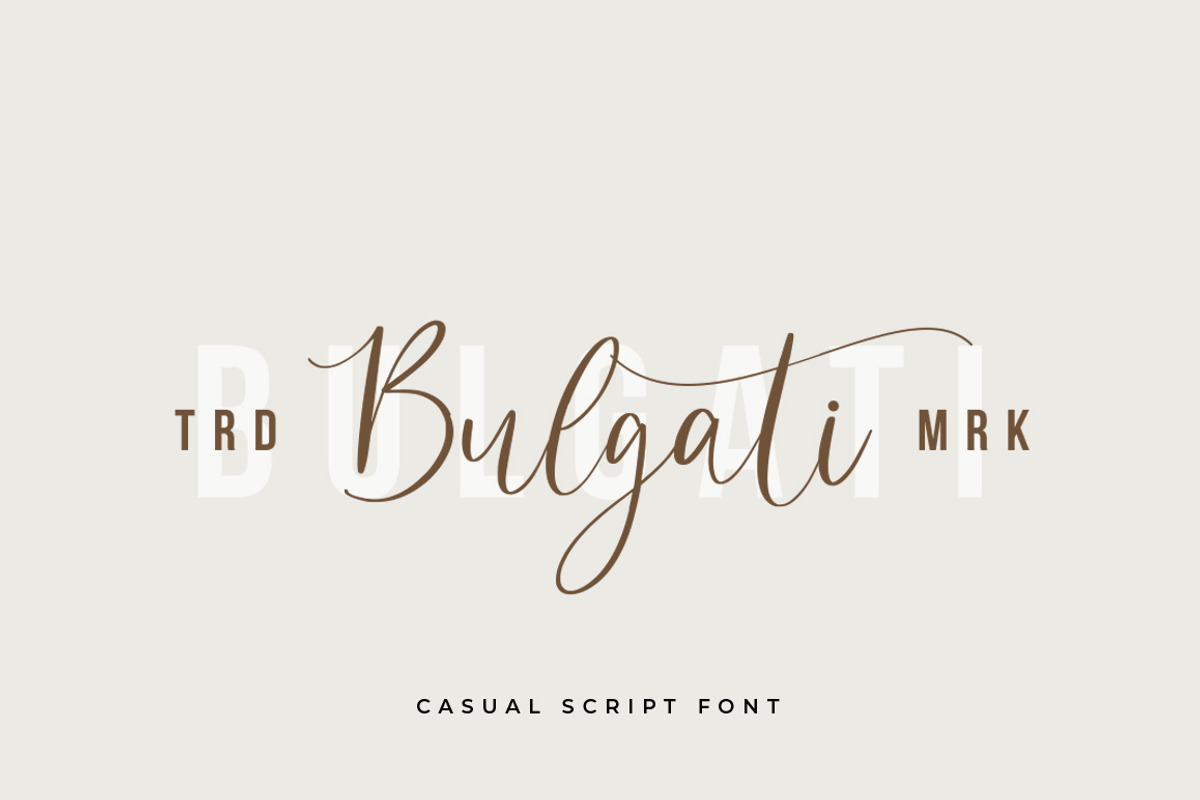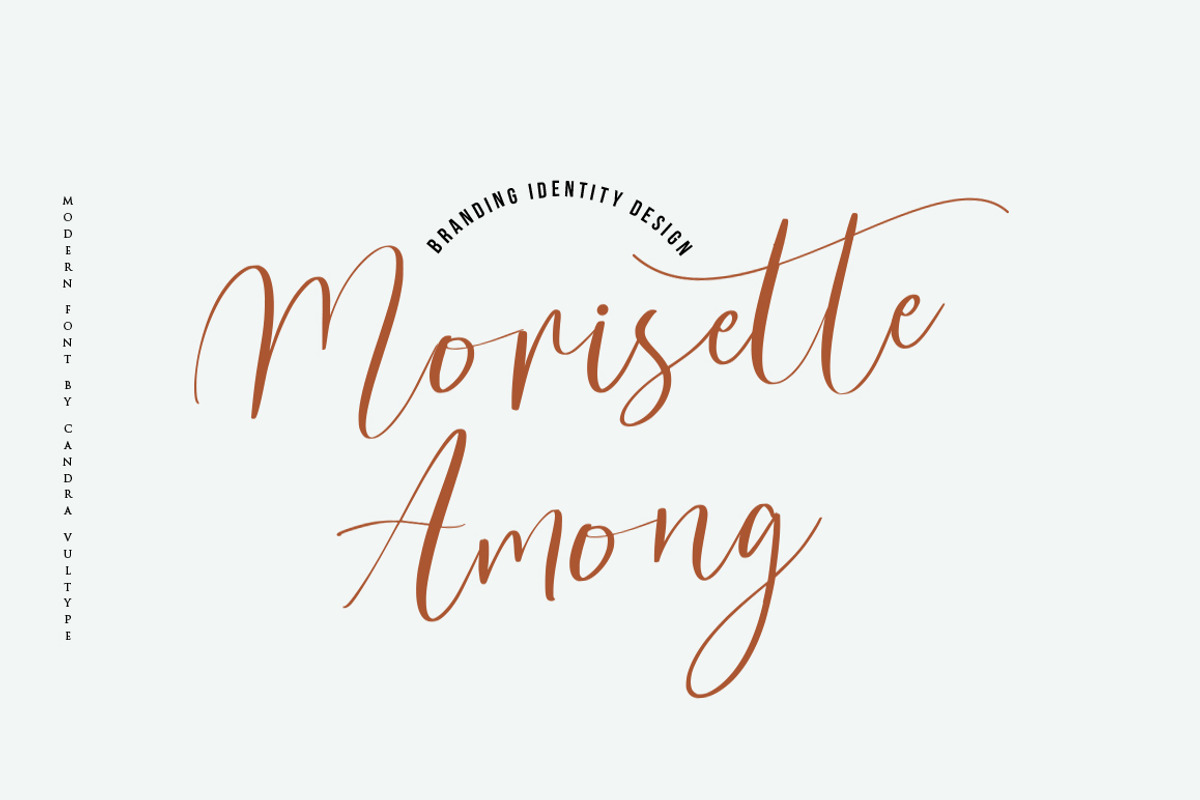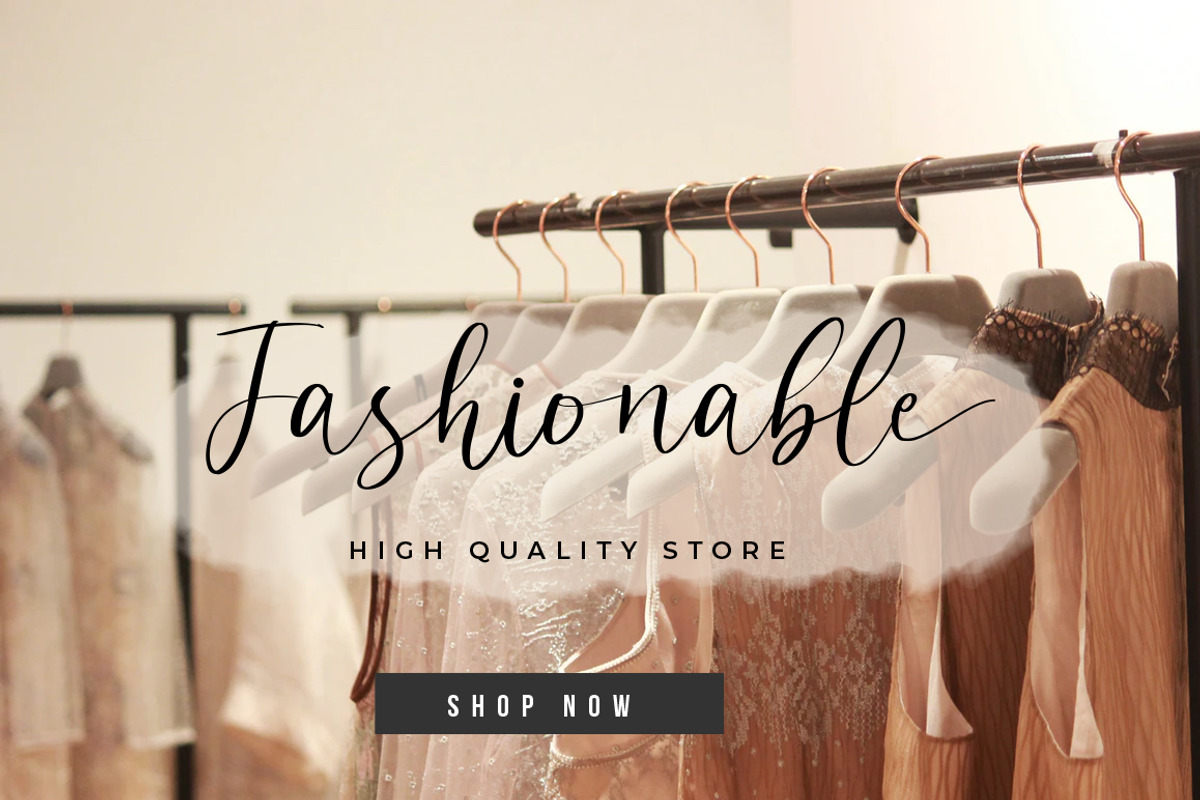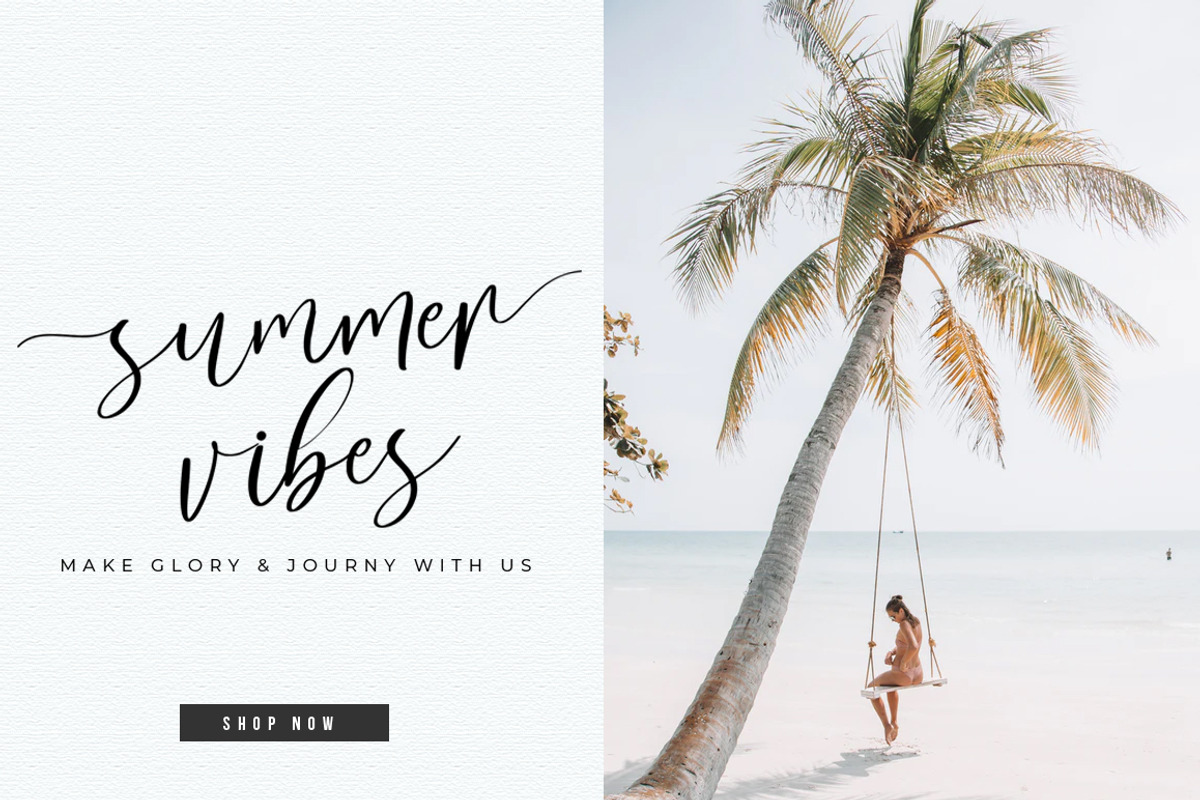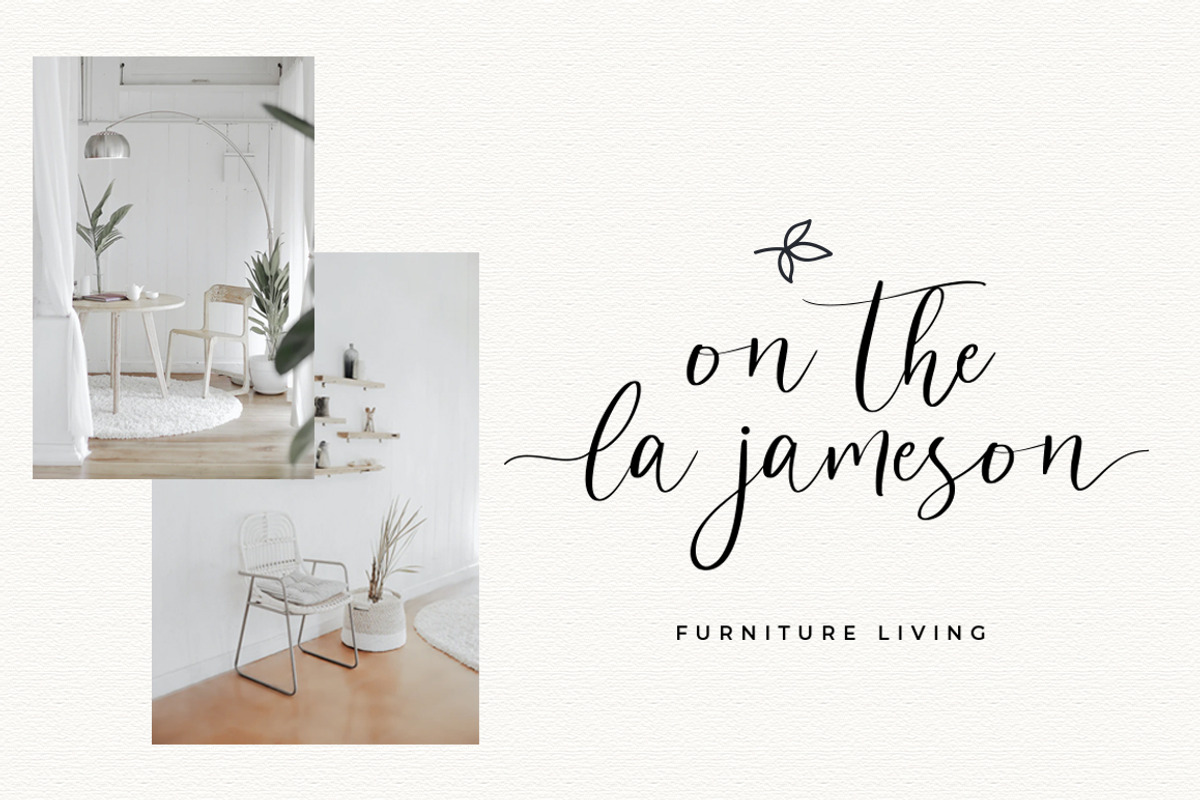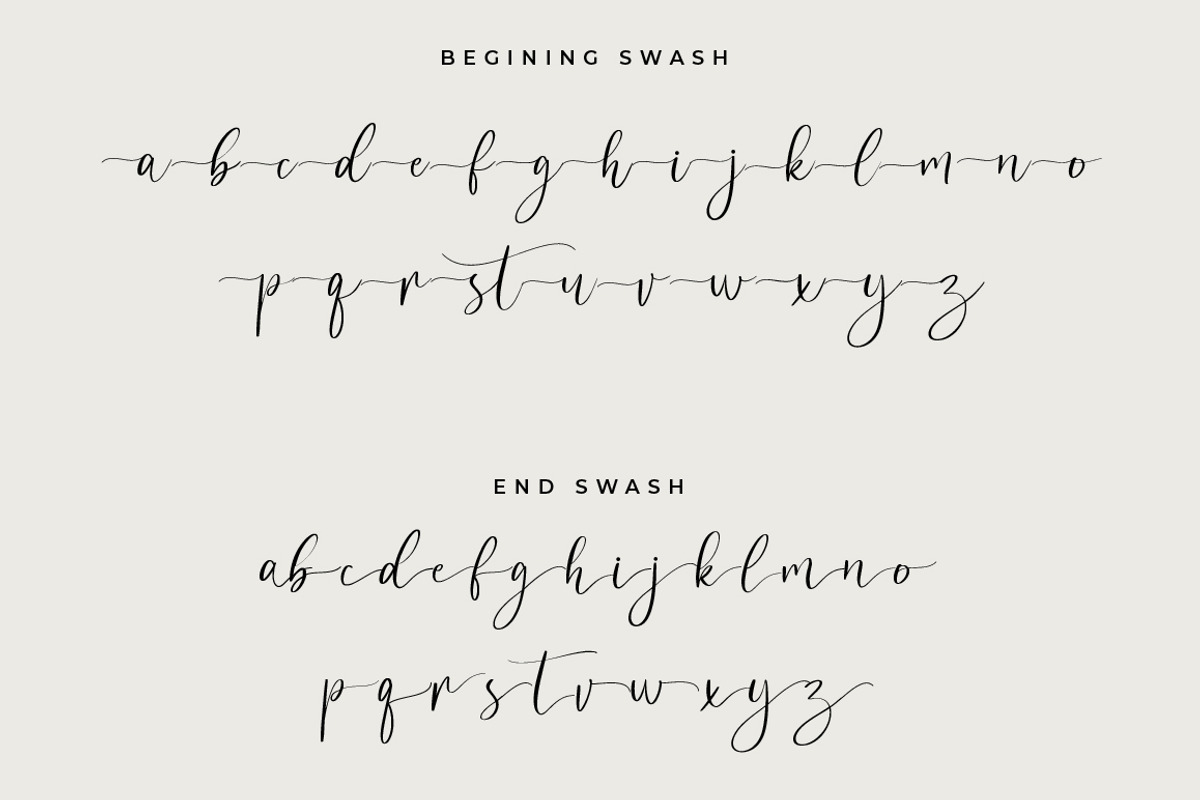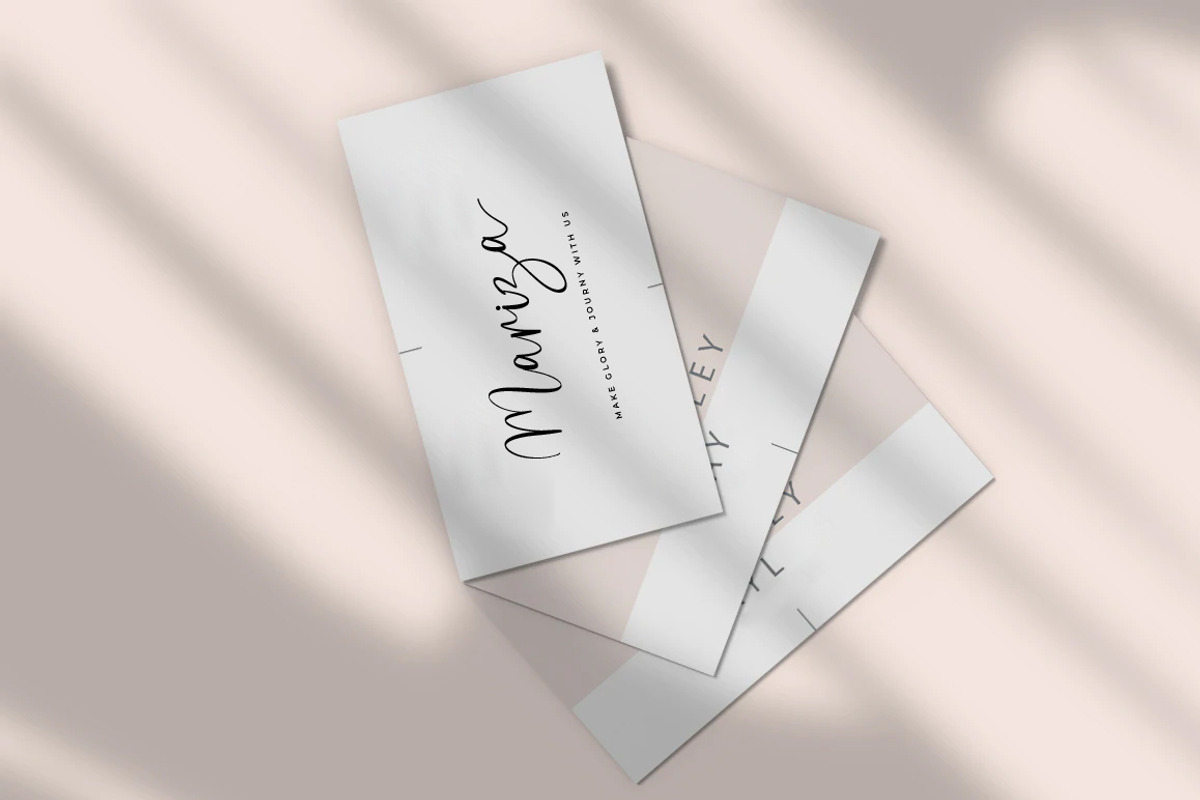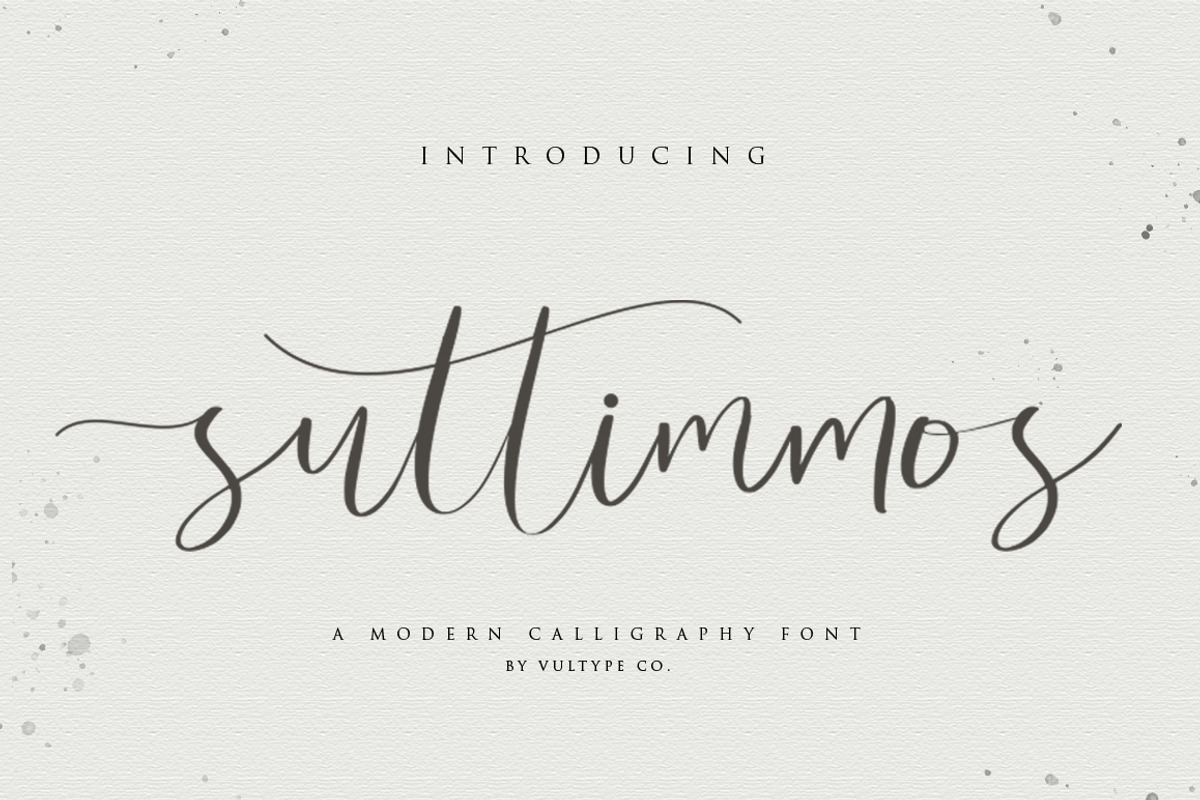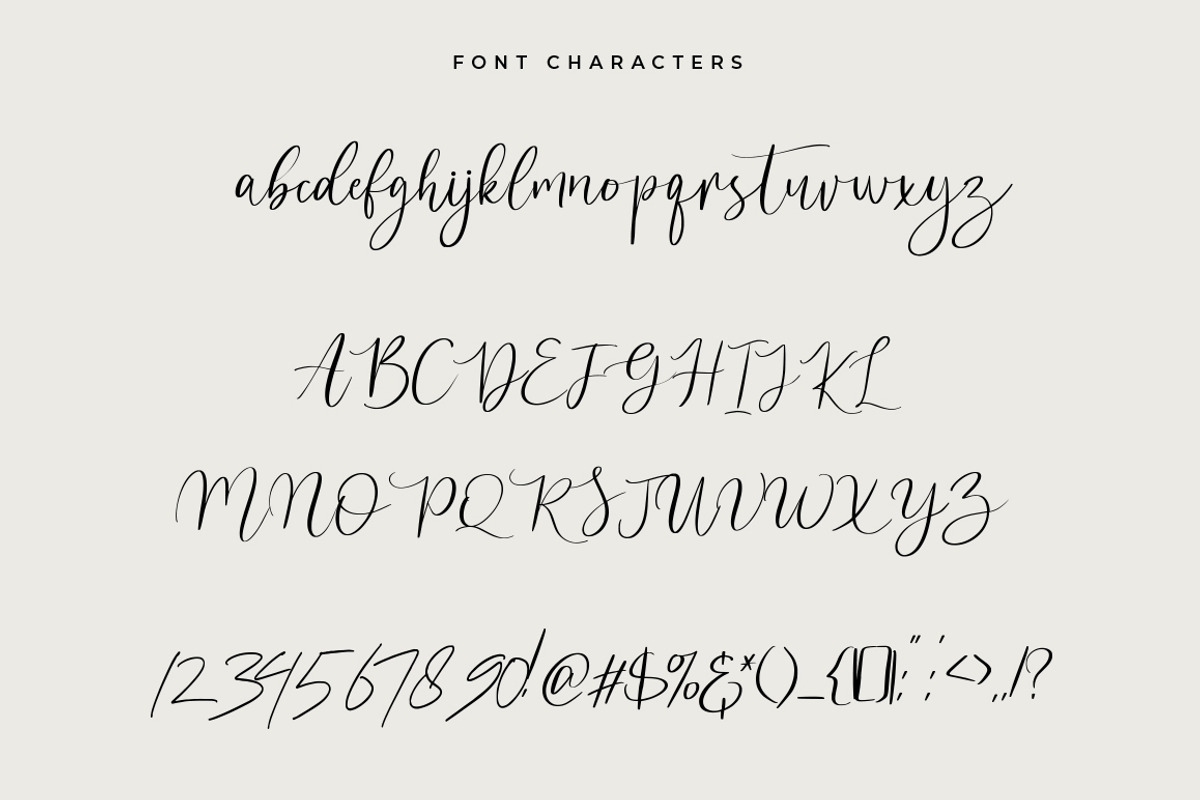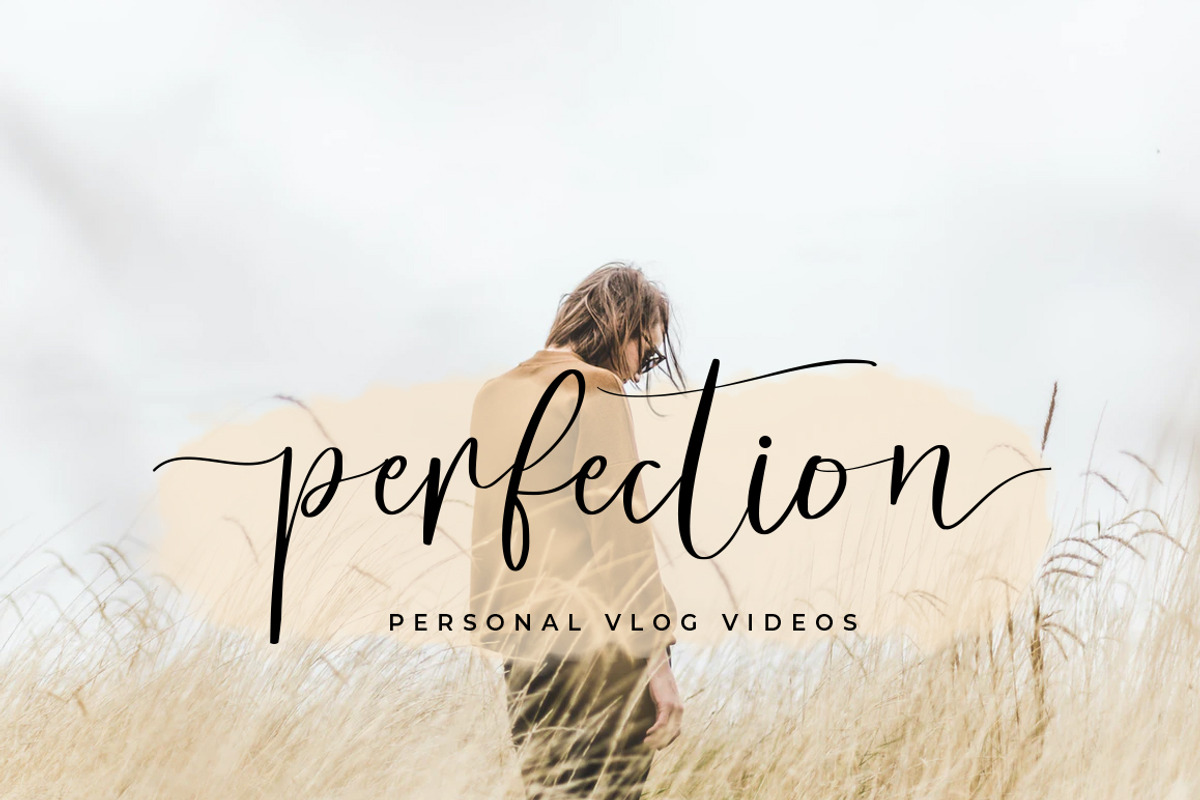
Suttimmos Script
Suttimmos is a delicate and elegant handwritten font. It is PUA encoded, which means that you can access all of the glyphs and swashes with ease! It features a varying baseline, smooth lines, gorgeous glyphs and stunning alternates. Fall in love with its unique style and use it to create spectacular designs!
This font is PUA encoded which means you can access all of the glyphs and swashes with ease! It features a varying baseline, smooth lines, gorgeous glyphs and stunning alternates.
- Uppercase + Lowercase Letters
- Numbers + Punctuation
- Ligature Feature
- OpenType features